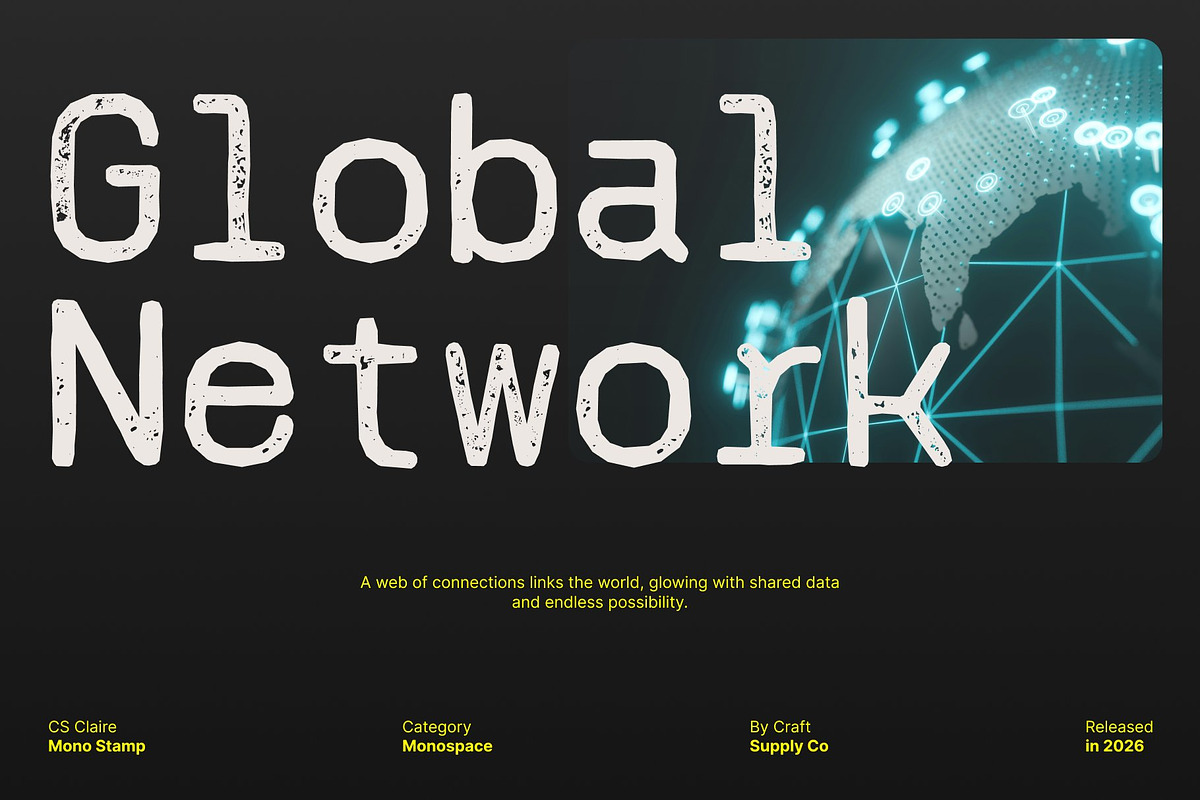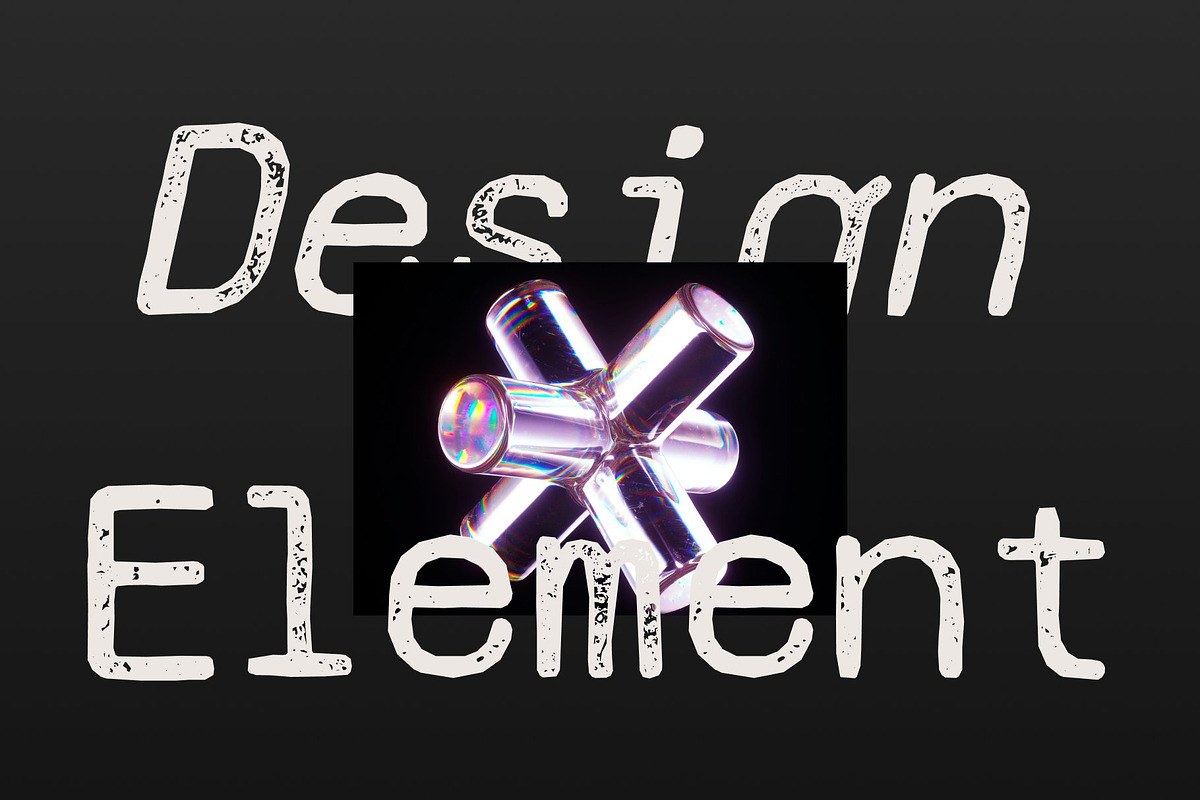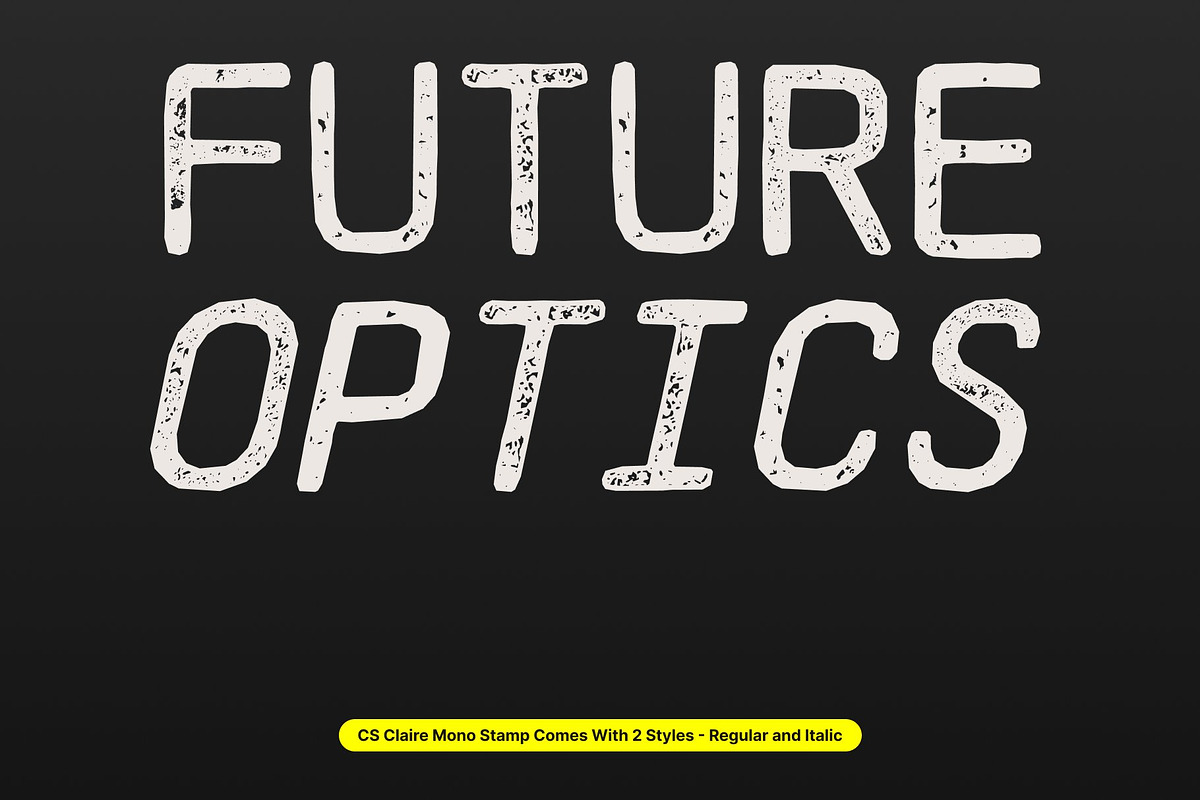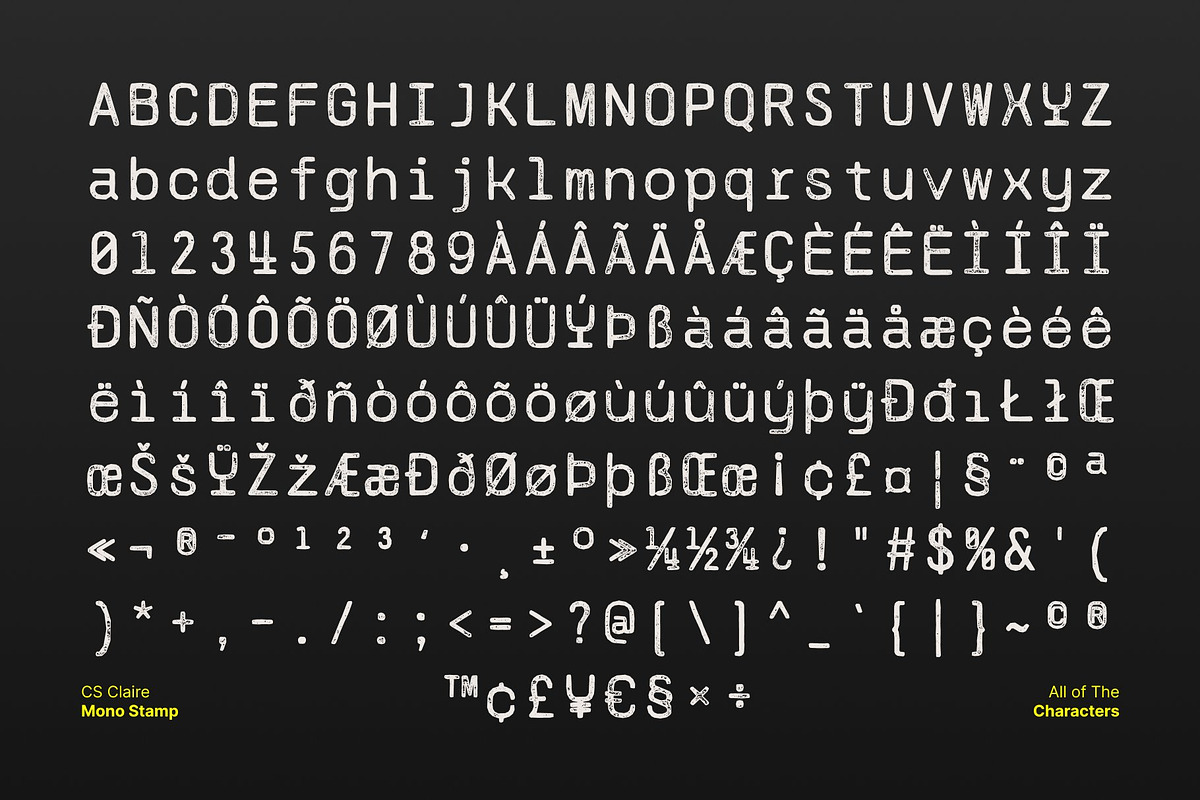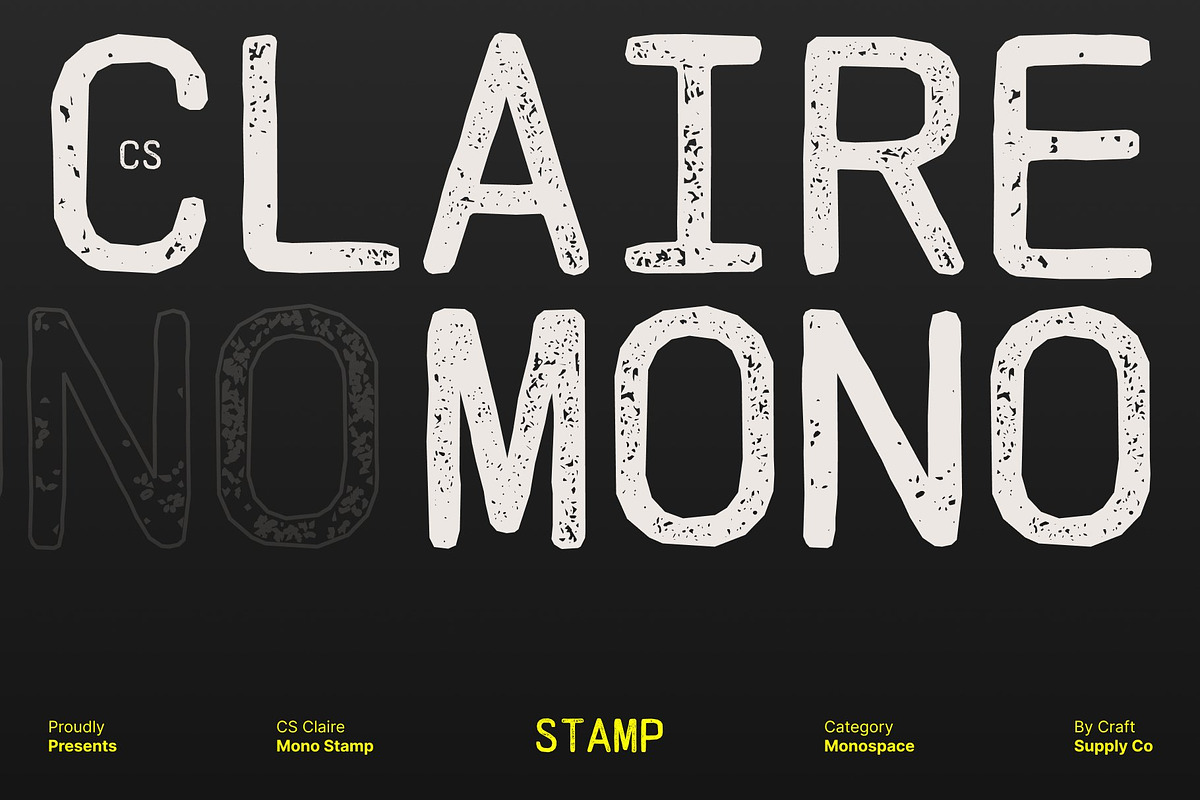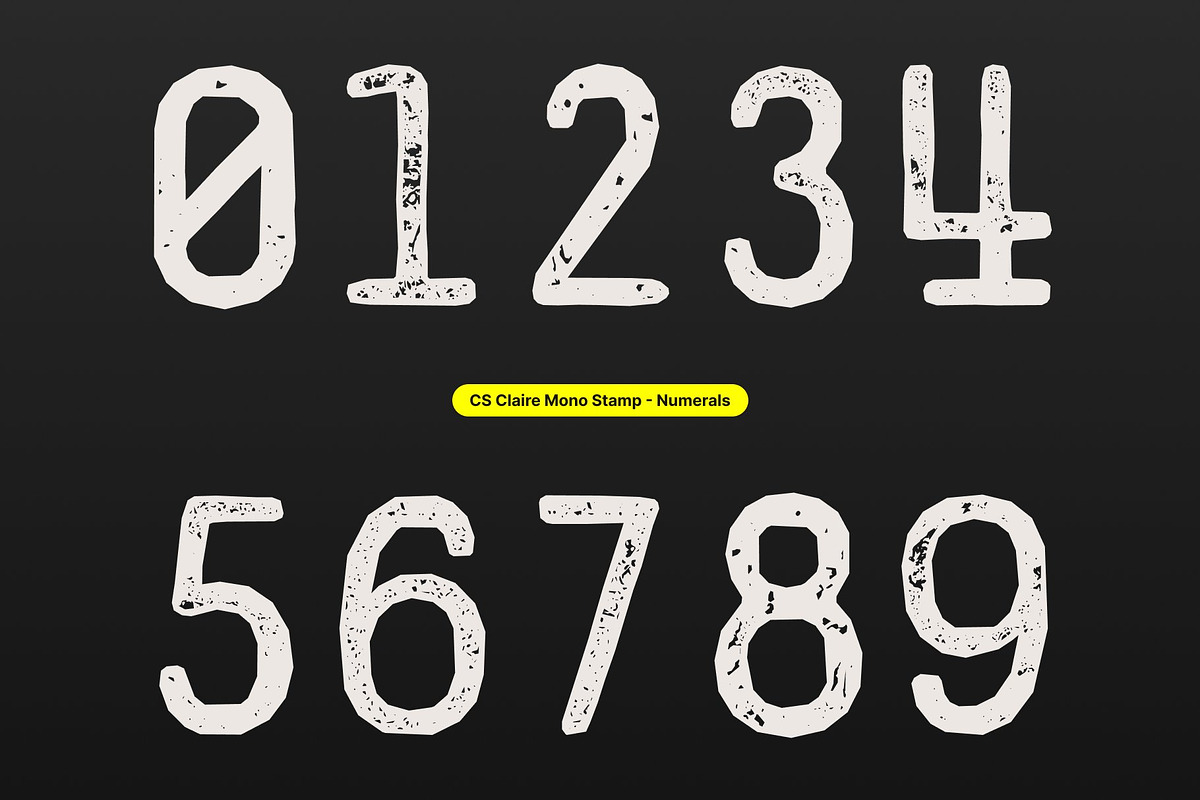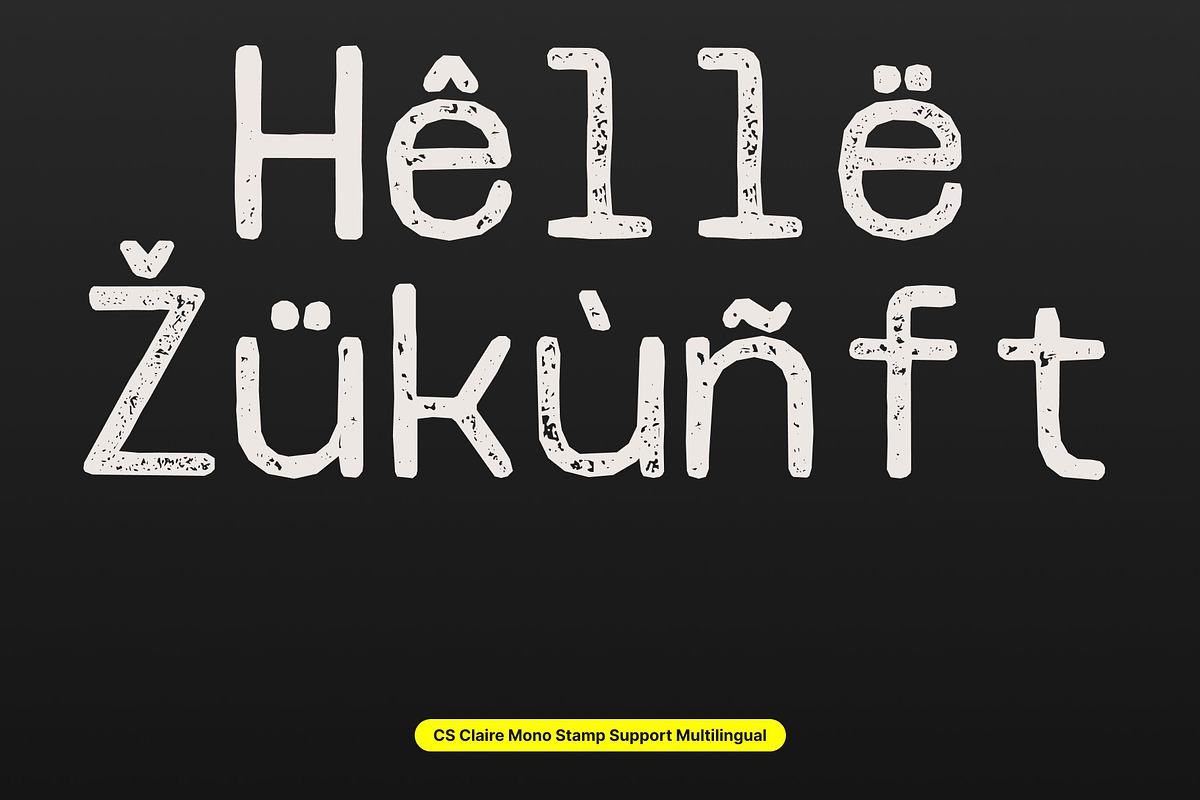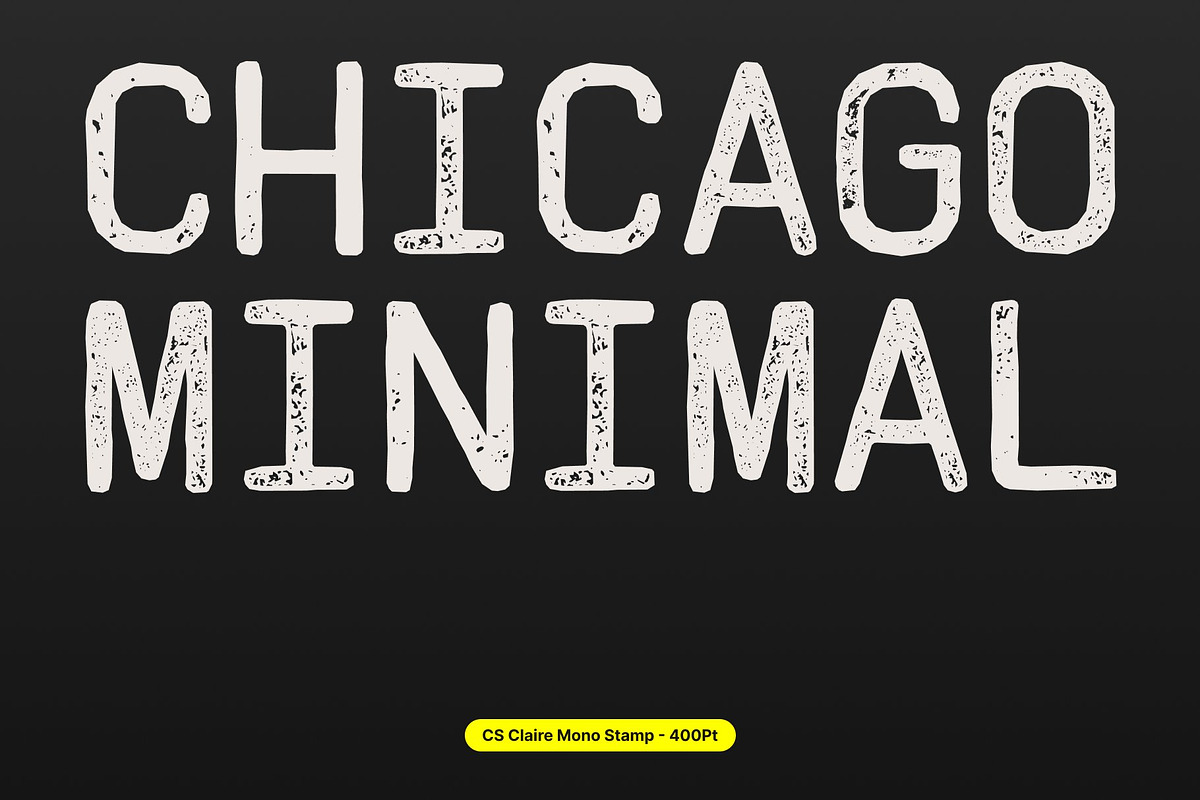
CS Claire Mono Stamp
CS Claire Mono Stamp – Precision Meets Vintage Character
Modern Monospaced Sans Serif with Professional Clarity This is a modern monospaced sans-serif font designed for precision, clarity, and professionalism. Each character is crafted with equal width, ensuring perfect alignment and consistency ideal for technical environments and structured layouts. Enhanced with a stamp effect, the font gains a subtle vintage texture that adds personality while maintaining its clean and functional design.
Structured Design with Textured Detail Built with precise geometry and balanced proportions, this font delivers excellent readability across both digital and print formats. The stamp effect introduces slight ink variations and gently worn edges, creating a tactile, printed feel that softens the technical rigidity with a touch of handcrafted warmth.
Clarity and Consistency for Technical Use The monospaced structure ensures organized and easily scannable text, making it perfect for coding, user interfaces, receipts, and documentation. Its clean lines and consistent spacing help communicate information efficiently while preserving a polished and professional appearance.
Versatile for Digital and Print Applications This font adapts seamlessly across a wide range of uses, from programming layouts and UI design to invoices, editorial systems, and branding with a technical edge. The combination of modern precision and vintage stamp texture results in a typeface that feels both functional and visually distinctive bringing clarity, structure, and subtle character to every project.